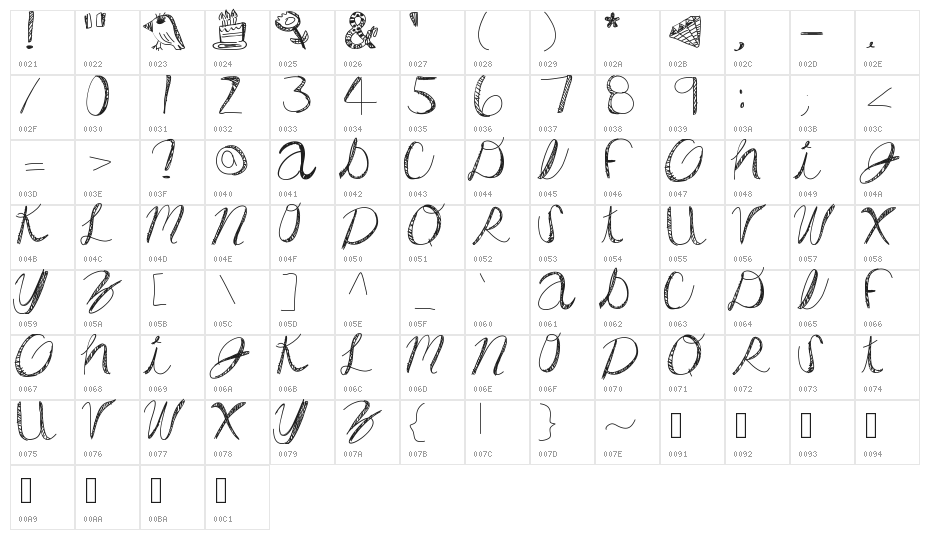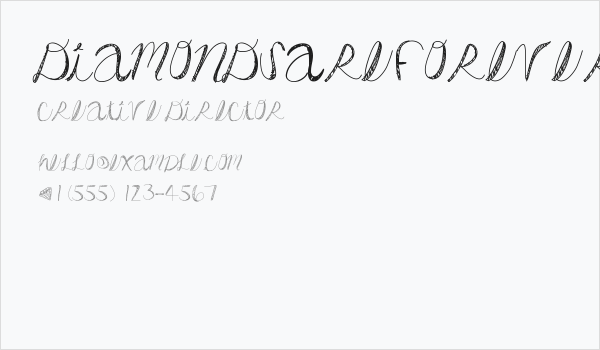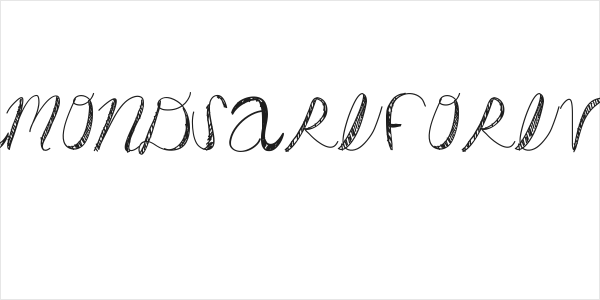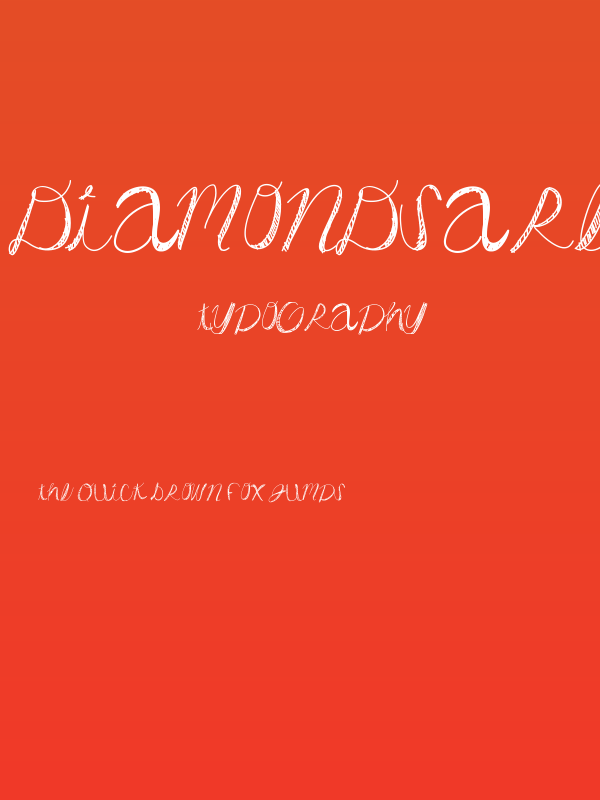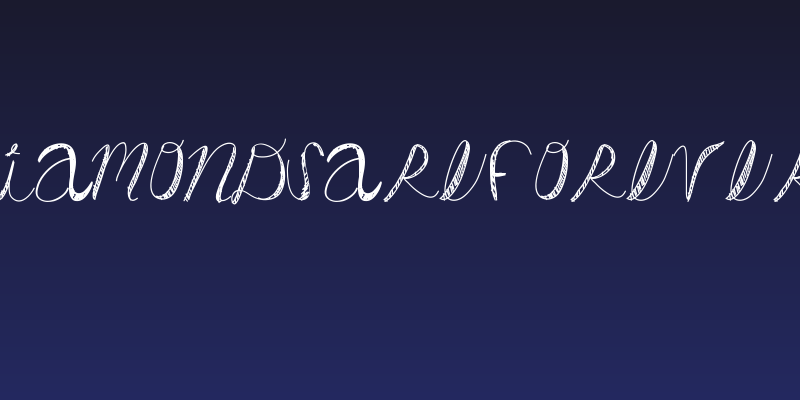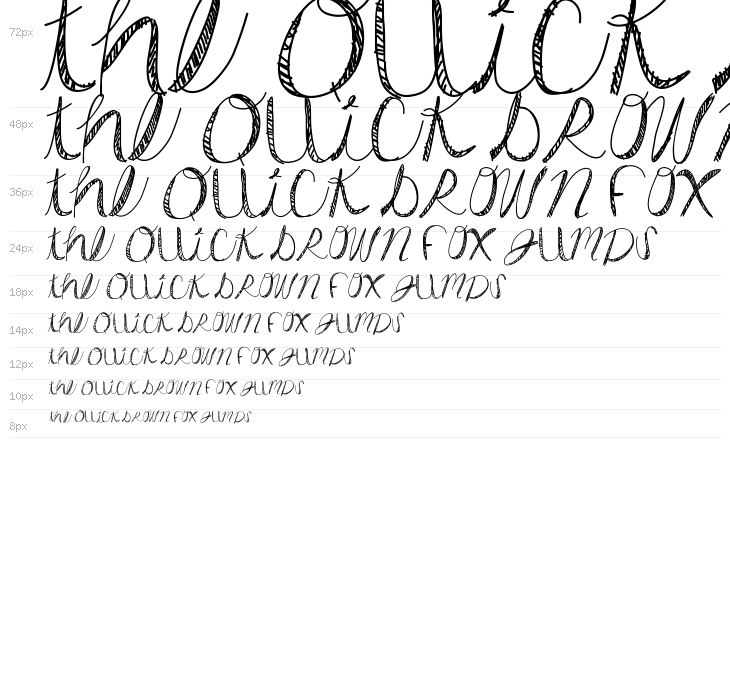
DiamondsAreForever Font
DiamondsAreForever Description
This font features a playful and whimsical handwritten style, characterized by its loose, flowing strokes and a sense of spontaneity. The letters are crafted with a mix of thick and thin lines, giving it a dynamic and lively appearance. The uppercase and lowercase letters share a consistent style, with a slight slant that adds to the casual feel. The numerals and special characters maintain the same playful aesthetic, with unique and creative designs that stand out. This font is perfect for projects that require a touch of personality and creativity, such as invitations, greeting cards, or artistic branding.
| Use Case | Headlines, Artistic projects, Invitations |
| Proposed Projects | Ideal for invitations, greeting cards, artistic branding, and creative projects. |